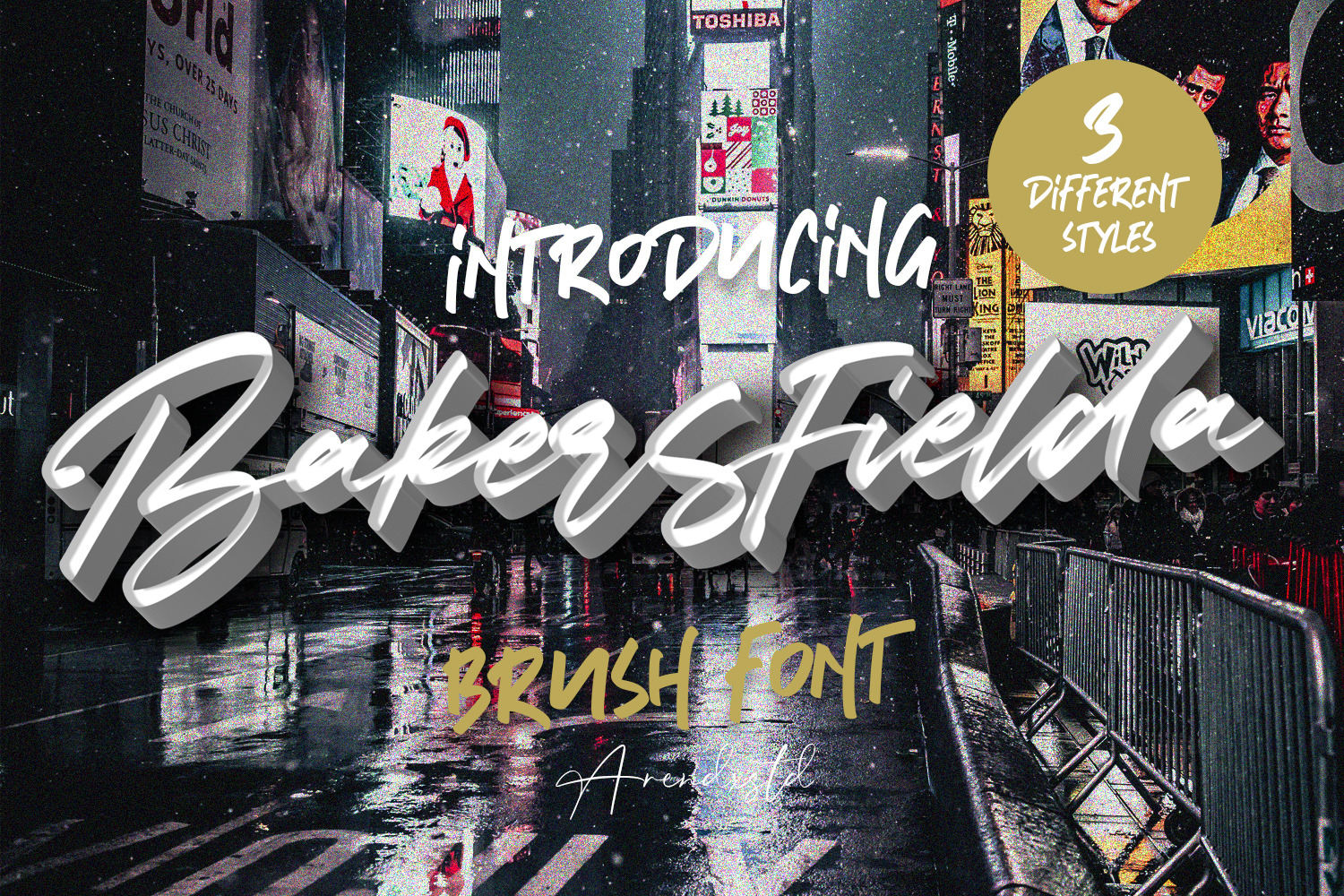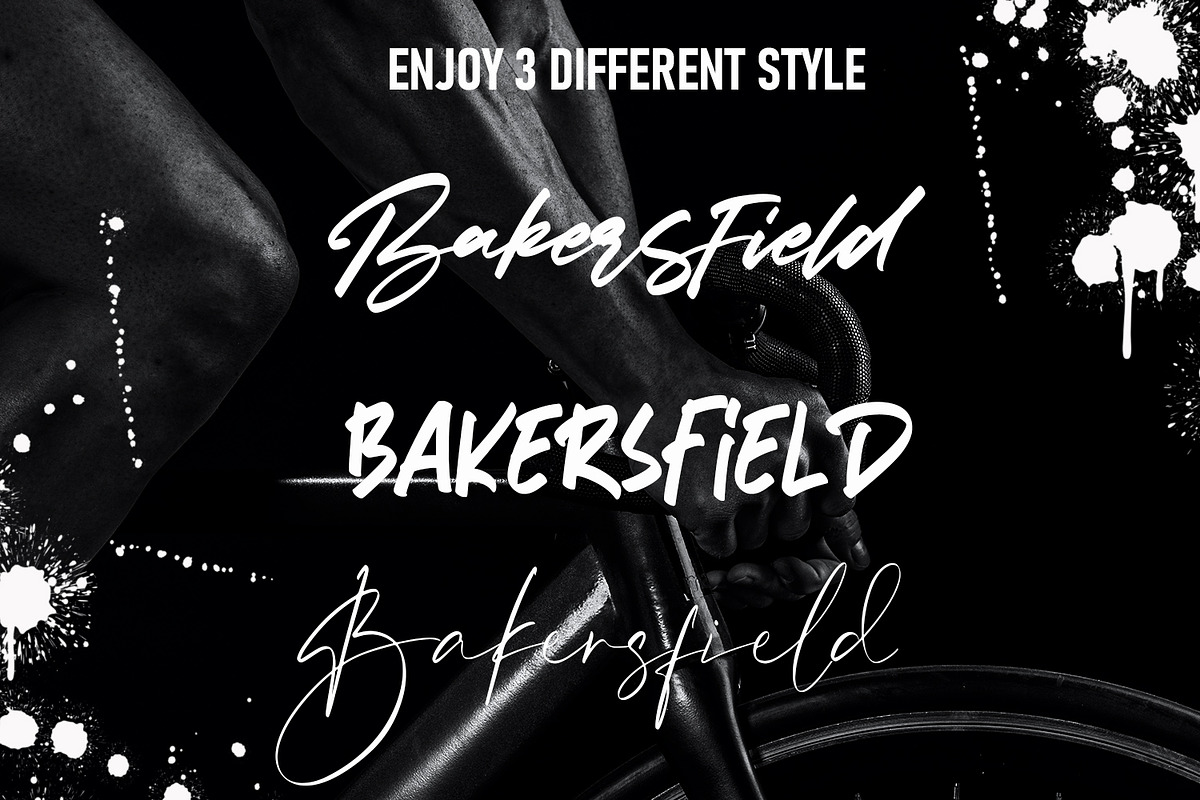
Bakersfield - 3 Font Combination
Bakersfield is a combination font with 3 different style variations that will make you feel easy to apply in your various design projects Bakersfield came with opentype features such stylistic alternates, stylistic sets & ligatures good for logotype, poster, badge, book cover, tshirt design, packaging and any more.
Features : • Character Set A-Z • Numerals & Punctuations (OpenType Standard) • Accents (Multilingual characters) • Ligature • Alternate